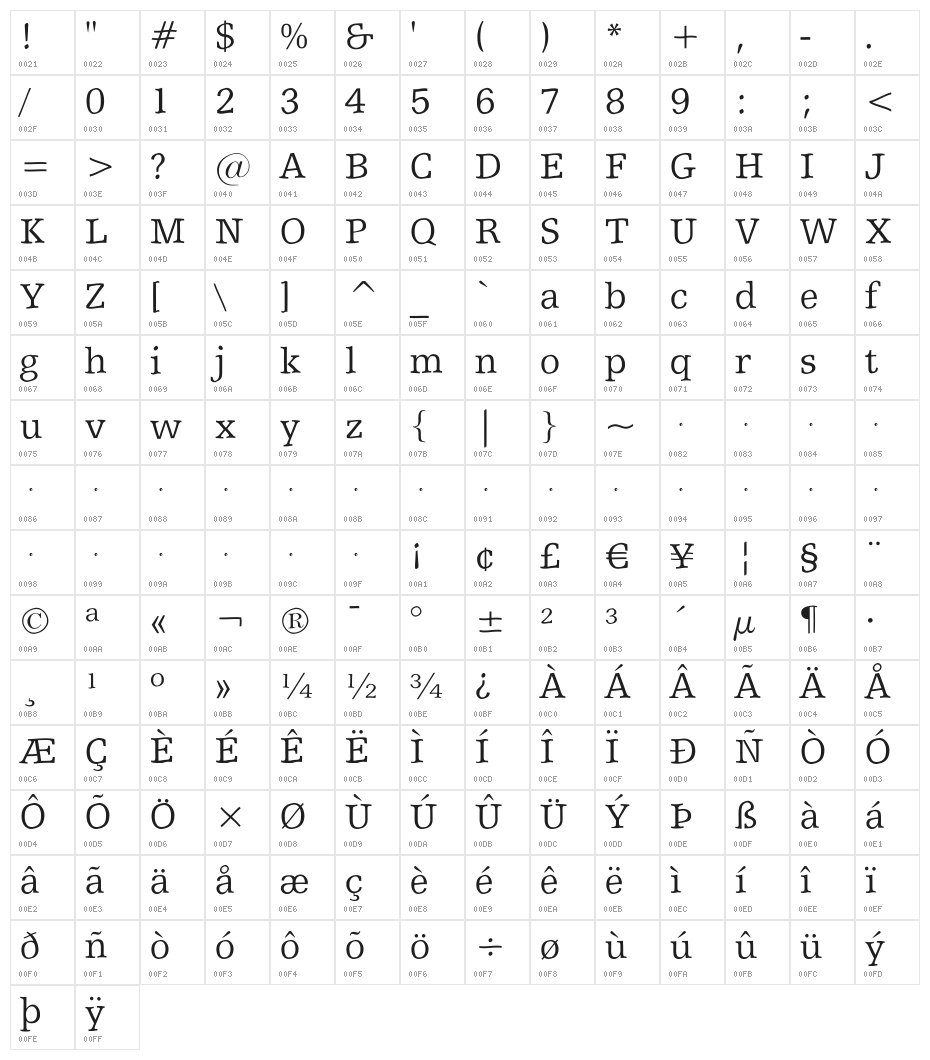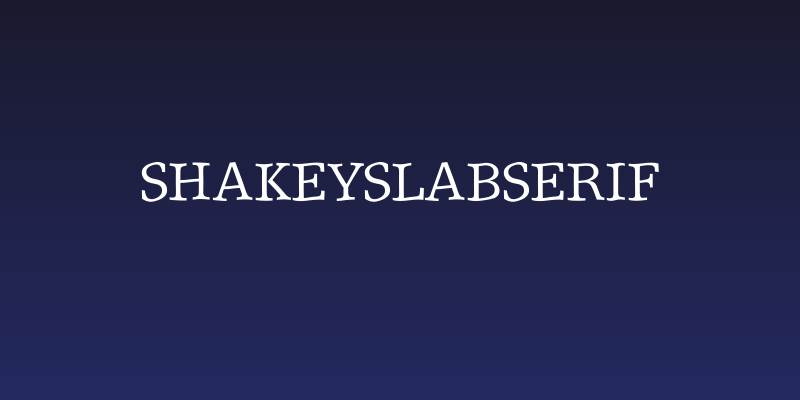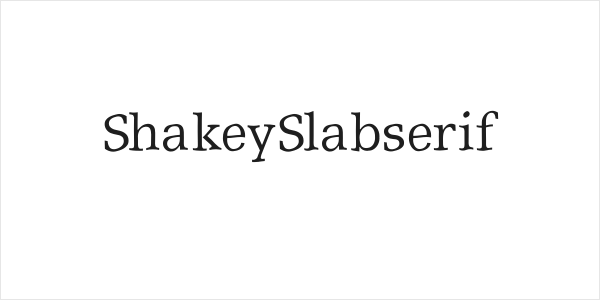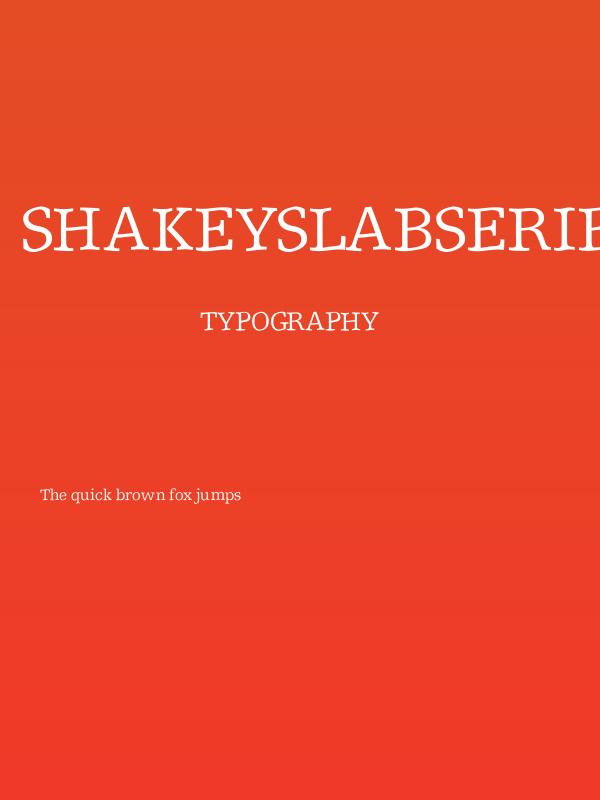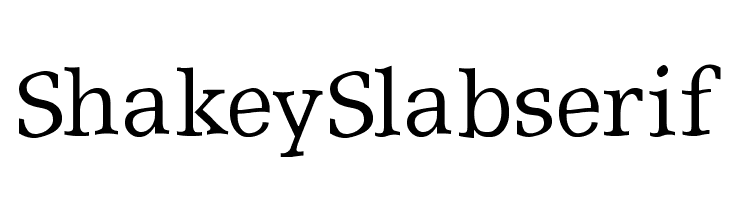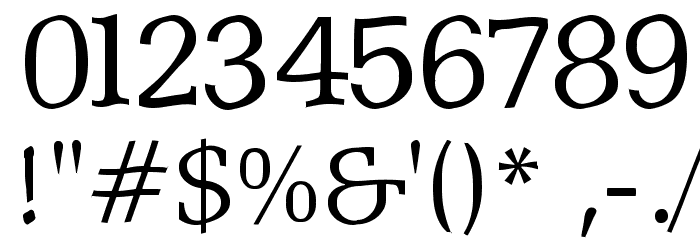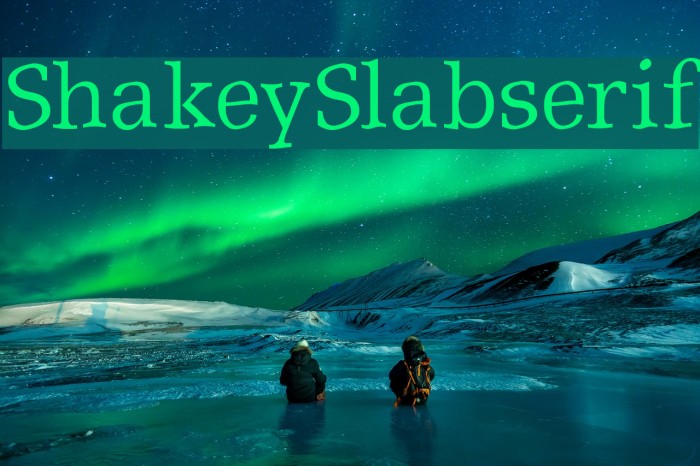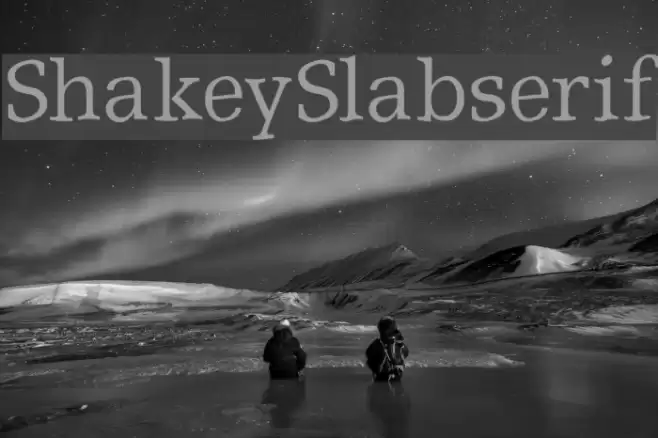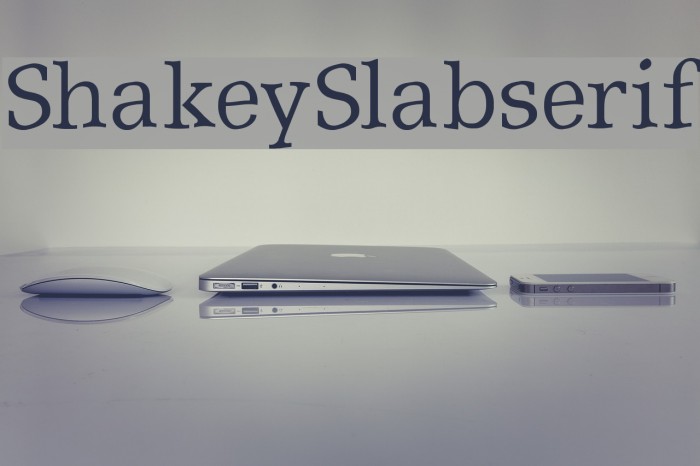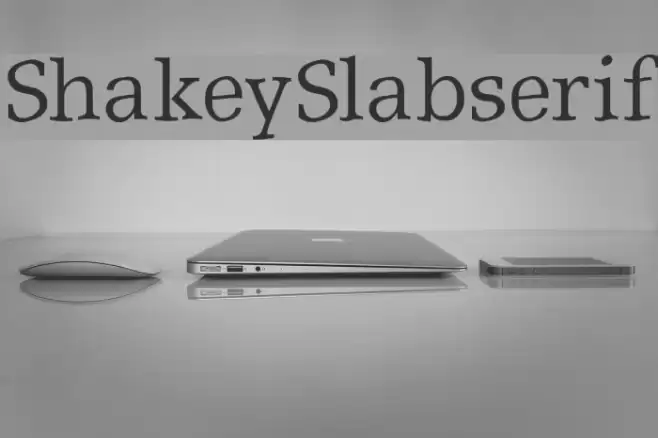
ShakeySlabserif Font
ShakeySlabserif Description
This font features a distinctive slab serif style with slightly irregular strokes that give it a handcrafted appearance. The uppercase letters are bold and commanding, while the lowercase letters maintain a consistent weight, offering a balanced look. The numerals are clear and legible, making them suitable for a variety of uses. Special characters are well-defined, adding to the font's versatility. The overall design combines a classic serif structure with a modern twist, making it ideal for projects that require a touch of elegance and uniqueness.
| Use Case | Headlines, Logos, Editorial Design |
| Proposed Projects | Ideal for branding, editorial design, posters, and packaging that require a classic yet modern touch. |